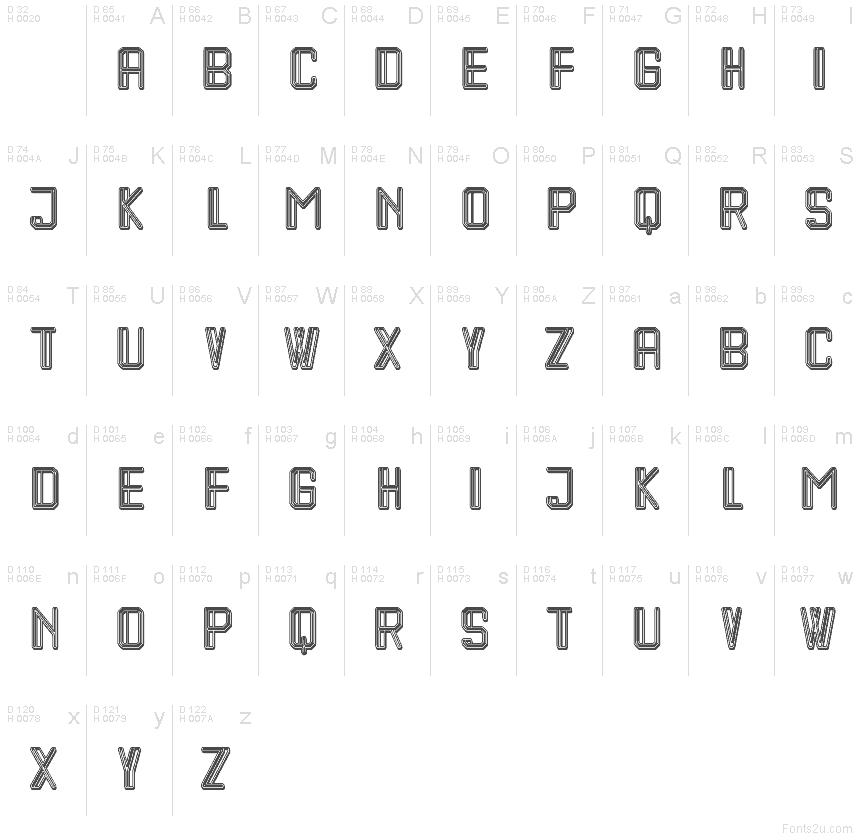
Operal Extravagant Regular
Operal Extravagant font by Vladimir Nikolic is a free condensed display typeface that truly evokes technology and innovation. This monospaced font is marked by vast geometric influences, exquisite decorative layers, high-precision design, and an overall transformative retro-futuristic flair.
A perfect fit for poster designs, headlines, movie titles, magazine covers, apparel items/stickers/labels parsing written text or logo identity. Use the provided characters for commercial or personal projects of your choice that require this type of visual transformation.